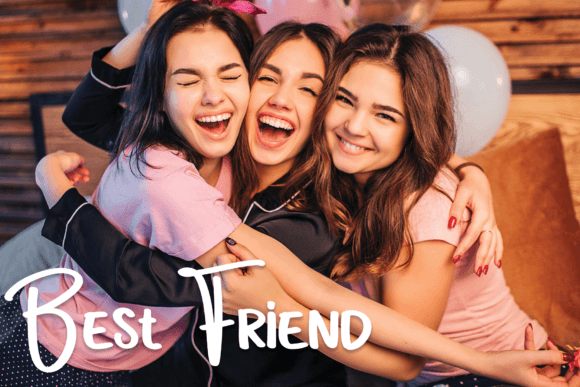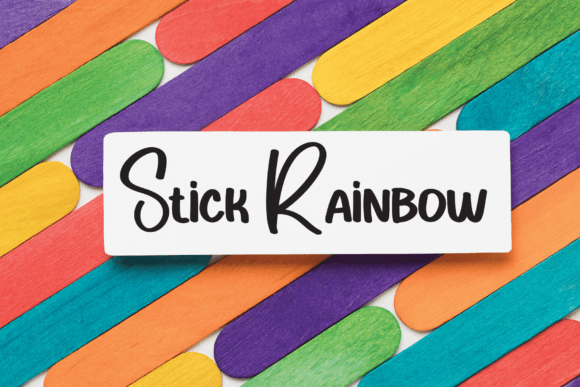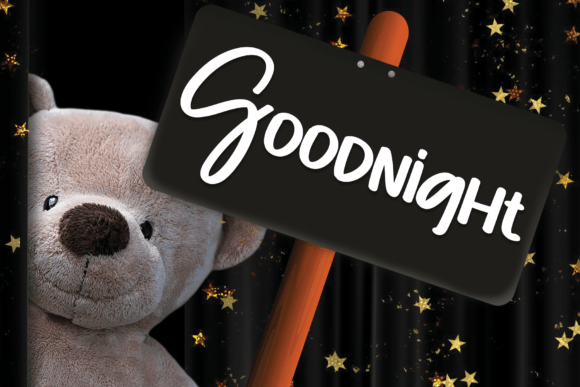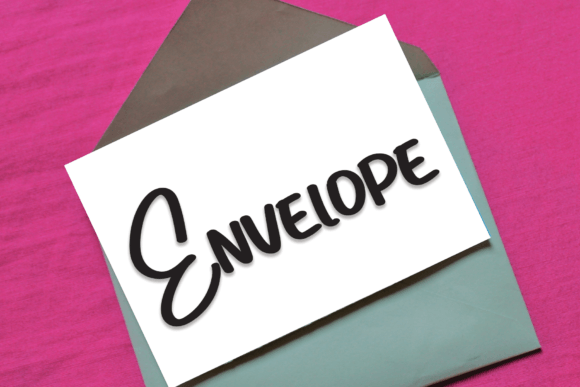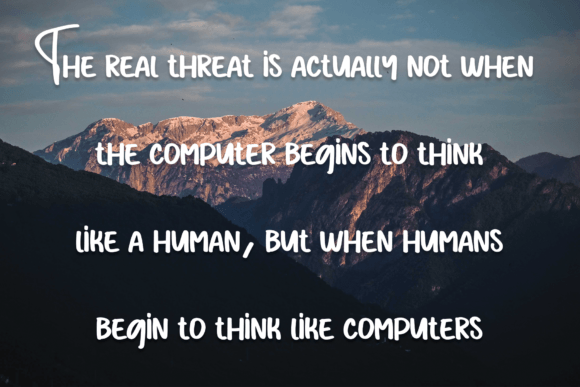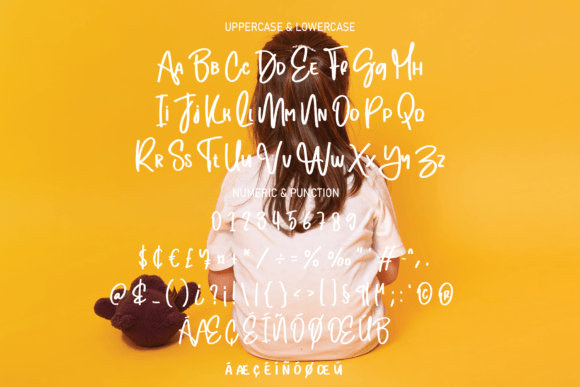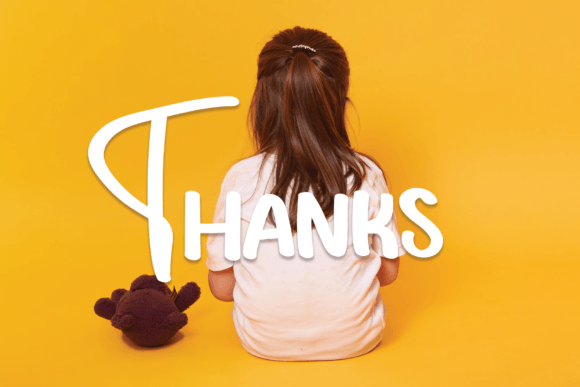
Love Girl Font
About Love Girl Handwritten Font
Love Girl Handwritten Font is a beautiful and elegant script typeface designed to add a personal and stylish touch to creative projects. With smooth curves and graceful proportions, it reflects the artistry of handwritten calligraphy while keeping a modern aesthetic. Because of its versatility, Love Girl Handwritten Font is perfect for wall displays, invitations, product packaging, photography, logos, and social media graphics.
A Handwritten Typeface with Style
Handwritten fonts often bring charm and authenticity to design, and Love Girl Handwritten Font excels in this area. Its strokes are neither too thin nor too thick, creating a balanced flow that enhances readability without losing elegance. In addition, its spotless design ensures that it looks professional and timeless across various uses.
Special moments deserve memorable design, and Love Girl HandwrittenFont is an excellent choice. For example, it transforms wedding invitations, thank-you notes, and event menus into keepsakes with personality. Moreover, it enhances seasonal greeting cards, birthday messages, and festive stationery, making them more meaningful and stylish.
A Script Typeface for Branding and Packaging
Businesses and designers can benefit from Love Girl HandwrittenFont when building brand identity. It elevates boutique logos, product labels, and promotional designs with sophistication. Furthermore, it adapts seamlessly to advertising campaigns, magazine layouts, and digital promotions. When paired with minimalist sans serif typefaces, it creates a refined and professional balance.
Flexible Across Print and Digital Platforms
Another strength of Love Girl HandwrittenFont is its flexibility across platforms. In print, it shines on posters, brochures, and merchandise. Digitally, it integrates smoothly into blogs, websites, and e-commerce stores. Since it scales well from small icons to large banners, it ensures clarity and consistency in every design format.